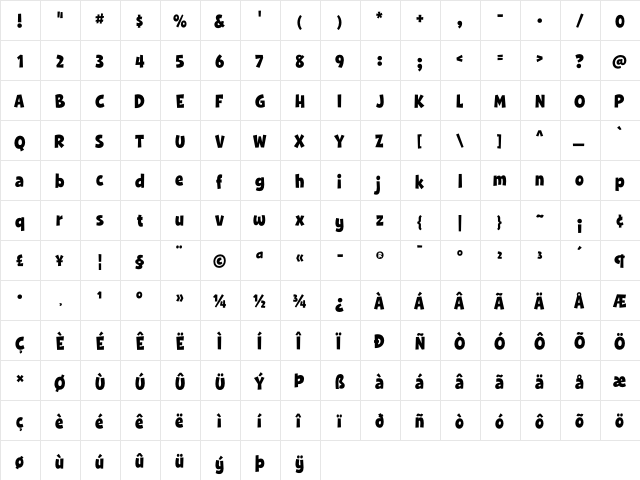
House Holiday Sans
| Style | Sans |
| Foundry | House Industries |
| Designer | Ken Barber, Laura Meseguer |
Design Context for House Holiday Typeface
House Holiday is a composed and adaptable typeface that performs quietly and consistently across a wide range of design contexts.